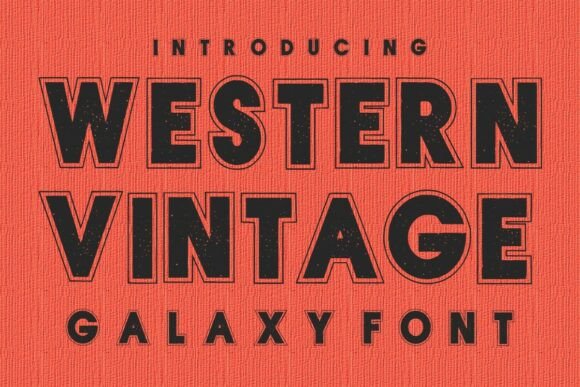
Western Vintage Font: A Grunge, Collage, Varsity Modern and Bold Display Font
The Western Vintage Font is a unique and stylish typeface that has gained popularity among designers and brands looking for a bold and eye-catching display font. This grunge, collage, varsity modern and bold display font is perfect for any winter and holiday branding project, product packaging, invitation, quote, t-shirt, label, poster, text effect, label, and logo that you wish to develop.
What is Western Vintage Font?
Western Vintage Font is a modern and bold display font that combines the classic look of vintage typography with a grungy, collage-inspired aesthetic. The font features bold lines, rough textures, and a distinctive varsity-style flair that gives it a unique and recognizable look. Whether you’re looking to create a bold and eye-catching logo, a stylish product label, or a festive holiday poster, Western Vintage Font is the perfect choice.
Key Features of Western Vintage Font
- Grunge and Collage-Inspired Aesthetic: Western Vintage Font features a unique blend of grunge and collage elements, giving it a rough, textured look that’s perfect for creating bold and eye-catching designs.
- Varsity-Style Flair: The font features a distinctive varsity-style flair, with bold lines and a sporty, modern aesthetic that’s perfect for creating stylish and recognizable branding.
- Modern and Bold Display Font: Western Vintage Font is a modern and bold display font that’s perfect for creating eye-catching headlines, titles, and logos.
- Suitable for Winter and Holiday Branding: The font’s winter and holiday-inspired aesthetic makes it perfect for creating festive and seasonal branding, packaging, and marketing materials.
Uses of Western Vintage Font
Western Vintage Font is a versatile typeface that can be used in a variety of design projects, including:
- Branding and Logo Design: Western Vintage Font is perfect for creating bold and eye-catching logos, brand names, and taglines that will help your business stand out.
- Product Packaging: The font’s grunge and collage-inspired aesthetic makes it perfect for creating stylish and recognizable product packaging that will help your products stand out on store shelves.
- Invitations and Event Marketing: Western Vintage Font is perfect for creating festive and stylish invitations, posters, and event marketing materials that will help you promote your events and attract attendees.
- T-Shirts and Apparel: The font’s bold and eye-catching aesthetic makes it perfect for creating stylish and recognizable t-shirts, hats, and other apparel.
- Posters and Print Materials: Western Vintage Font is perfect for creating bold and eye-catching posters, flyers, brochures, and other print materials that will help you promote your business or event.
Benefits of Using Western Vintage Font
There are many benefits to using Western Vintage Font in your design projects, including:
- Unique and Recognizable Aesthetic: Western Vintage Font features a unique and recognizable aesthetic that will help your designs stand out from the competition.
- Versatility: The font is versatile and can be used in a variety of design projects, from branding and logo design to product packaging and event marketing.
- Easy to Read: Despite its bold and grungy aesthetic, Western Vintage Font is easy to read and can be used in a variety of contexts, from headlines and titles to body copy and text.
- High-Quality Design: Western Vintage Font is a high-quality design that will help you create professional-looking designs that will impress your clients and audience.
Tips for Using Western Vintage Font
Here are some tips for using Western Vintage Font in your design projects:
- Use it Boldly: Western Vintage Font is a bold and eye-catching font, so don’t be afraid to use it boldly in your designs.
- Experiment with Colors: The font’s grunge and collage-inspired aesthetic makes it perfect for experimenting with different colors and textures.
- Pair it with Other Fonts: Western Vintage Font can be paired with other fonts to create a unique and recognizable aesthetic.
- Use it for Headlines and Titles: The font is perfect for creating bold and eye-catching headlines and titles that will help you grab the attention of your audience.
Western Vintage Font is a unique and stylish typeface that’s perfect for any winter and holiday branding project, product packaging, invitation, quote, t-shirt, label, poster, text effect, label, and logo that you wish to develop. With its grunge, collage, varsity modern and bold display font aesthetic, Western Vintage Font is sure to help you create bold and eye-catching designs that will impress your clients and audience.